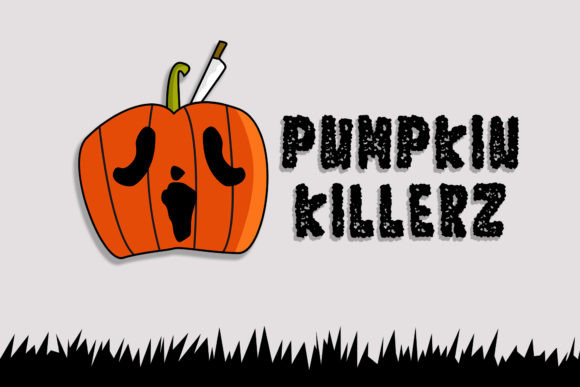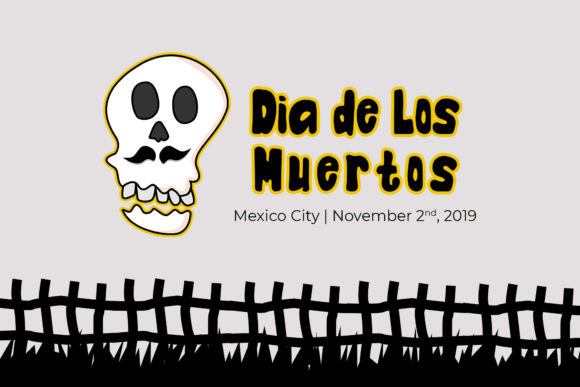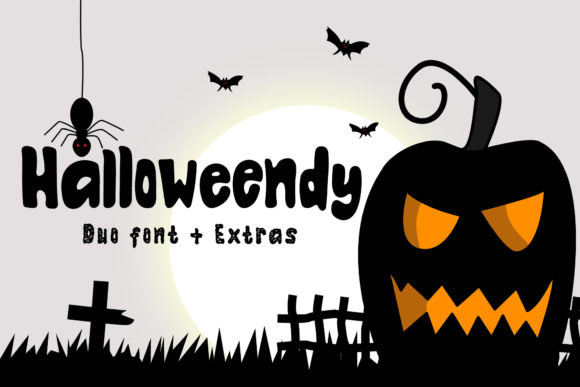
Halloweendy Font
Halloweendy is a playful display font which is perfect for many design purposes. It will give your design both a funny and spooky appearance.